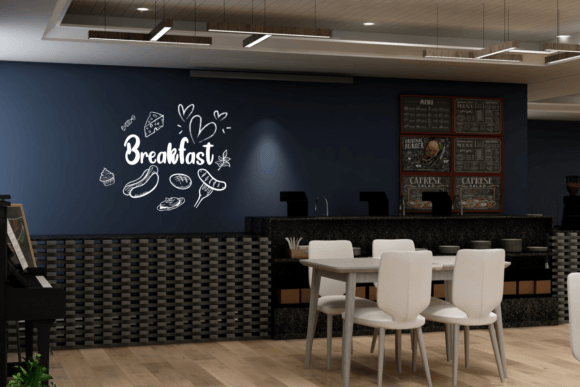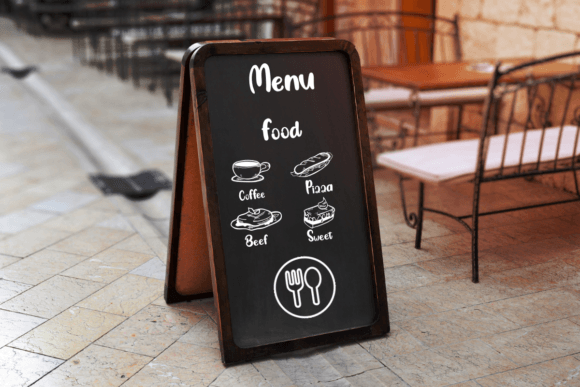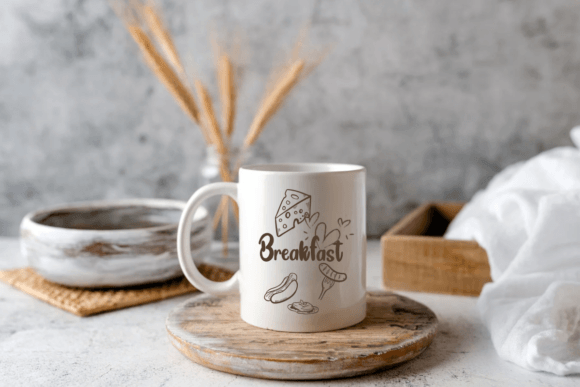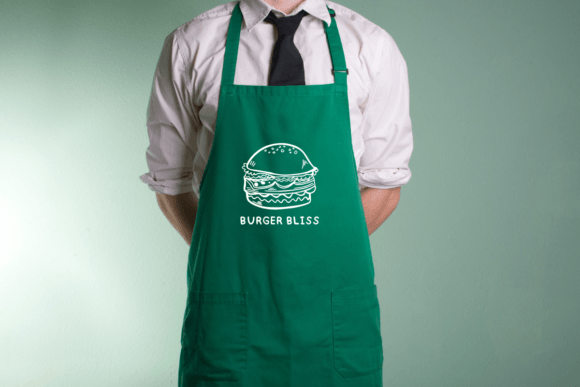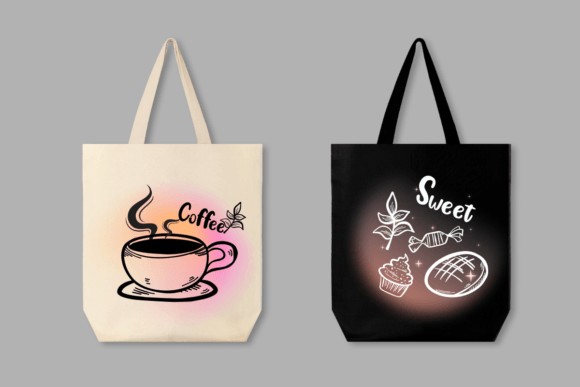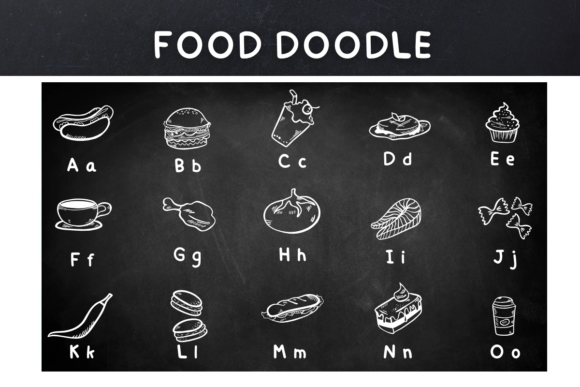
Introducing Food Doodle Font: Unleash Your Creativity with this Sketched Dingbats Font
Are you a designer, crafter, or DIY enthusiast looking for a unique font to add a personal touch to your creative projects? Look no further than Food Doodle Font, a delightful dingbats font with a sketched style that’s perfect for bringing your ideas to life. In this article, we’ll explore the features and benefits of Food Doodle Font, and show you how it can enhance your wedding invitations, DIY projects, crafts, decorations, logos, and many other creative endeavors.
What is Food Doodle Font?
Food Doodle Font is a dingbats font that features a charming, hand-sketched style. The font is made up of a wide range of doodles, including food items, kitchen utensils, and other culinary-themed illustrations. With its playful, whimsical design, Food Doodle Font is perfect for adding a touch of personality to your creative projects.
Key Features of Food Doodle Font
- Unique Sketched Style: Food Doodle Font features a distinctive, hand-sketched style that’s both playful and elegant.
- Wide Range of Doodles: The font includes a vast array of doodles, from food items and kitchen utensils to decorations and other culinary-themed illustrations.
- Scalable: The font is highly scalable, allowing you to use it for a wide range of projects, from small crafts to large-scale designs.
Creative Ways to Use Food Doodle Font
Food Doodle Font is an incredibly versatile font that can be used in a wide range of creative projects. Here are some ideas to get you started:
- Wedding Invitations: Add a touch of whimsy to your wedding invitations with Food Doodle Font. Use the font to create custom illustrations of food, flowers, and other wedding-themed elements.
- DIY Projects: Food Doodle Font is perfect for DIY enthusiasts who love to craft and create. Use the font to add a personal touch to your DIY projects, such as homemade cards, gift tags, and decorations.
- Crafts: Food Doodle Font is a great addition to any crafter’s toolkit. Use the font to create custom illustrations for your crafts, such as knitting patterns, sewing projects, and paper crafts.
- Decorations: Use Food Doodle Font to create custom decorations for your home or office. Design custom wall art, garlands, and other decorative elements using the font.
- Logos: Food Doodle Font can also be used to create custom logos for your business or brand. The font’s playful, whimsical design makes it perfect for businesses in the food, craft, or DIY industries.
- Experiment with Different Sizes: Food Doodle Font is highly scalable, so don’t be afraid to experiment with different sizes to find the perfect fit for your project.
- Combine with Other Fonts: Food Doodle Font pairs well with a wide range of other fonts. Try combining it with a bold font for a striking contrast.
- Use for Colorful Designs: Food Doodle Font is perfect for colorful designs. Use the font to create bright, eye-catching illustrations that pop.
Food Doodle Font is a unique and versatile dingbats font that’s perfect for designers, crafters, and DIY enthusiasts. With its sketched style and wide range of doodles, the font is ideal for adding a personal touch to your creative projects. Whether you’re designing wedding invitations, DIY projects, crafts, decorations, logos, or other creative endeavors, Food Doodle Font is sure to inspire your creativity and bring your ideas to life.